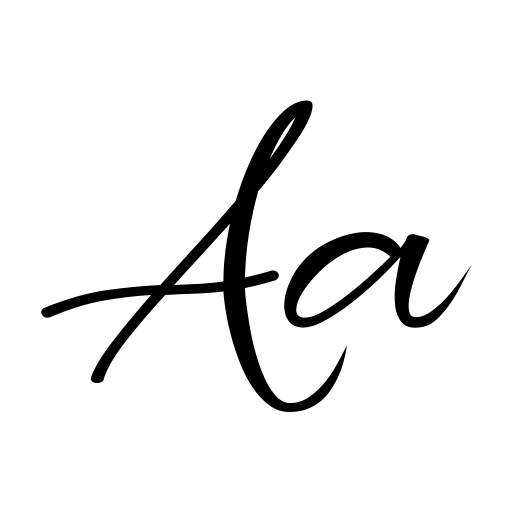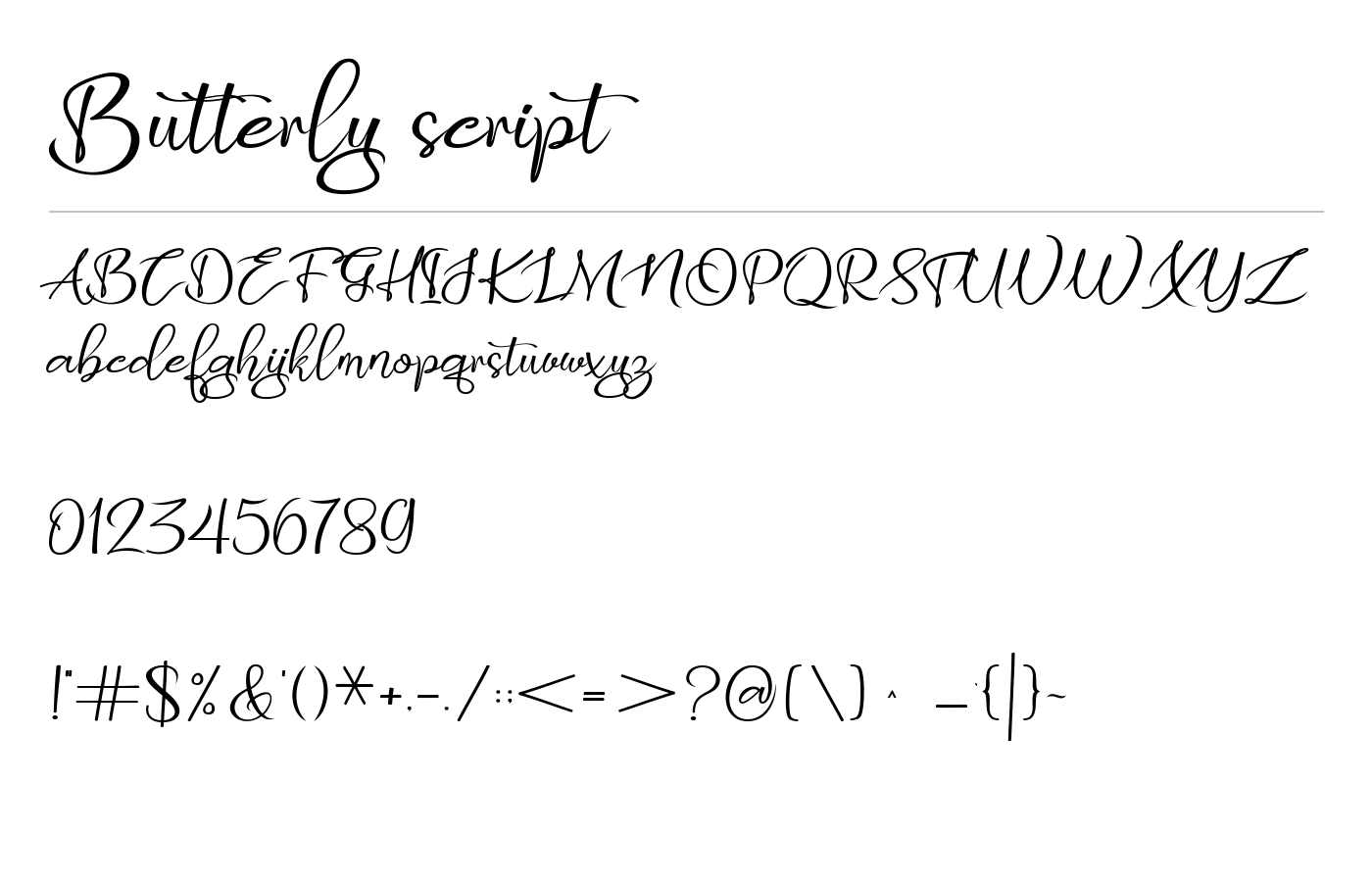
Butterly Script is a graceful and elegant script font with delicate, flowing strokes that mimic natural handwriting. Its slender letterforms, subtle contrasts, and decorative swashes make it perfect for adding a refined, romantic touch to invitations, branding, and creative projects. This font works beautifully in designs that seek a sophisticated yet personal feel.
Butterly script Font
About Butterly script Font
| Font family | Butterly script Font |